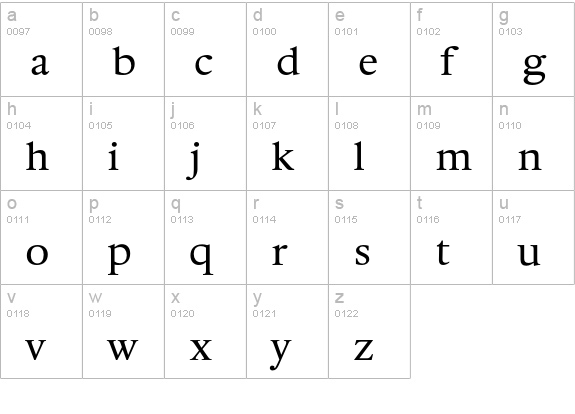
DTLElzevirSB Font Details
DTLElzevirSB is a versatile and elegant font that strikes the perfect balance between traditional and modern styles. With its clean lines and classic serifs, this font exudes sophistication and refinement. Whether used for headings, body text, or any other design element, DTLElzevirSB adds a touch of timeless charm to any project. The best part? DTLElzevirSB is available for free download at FontsMarket.com. This means that you can easily access this high-quality font for all your creative endeavors without breaking the bank. Don't miss out on the opportunity to elevate your designs with the beauty and grace of DTLElzevirSB. Download it today and let your creativity soar!